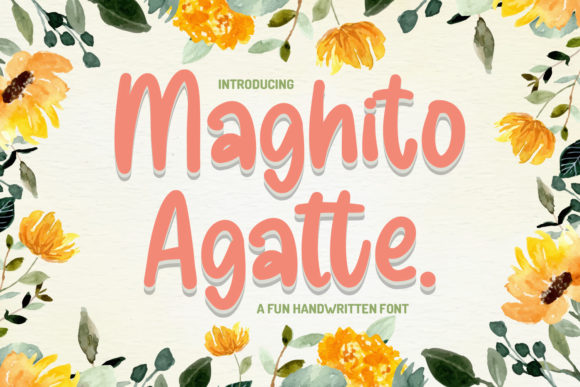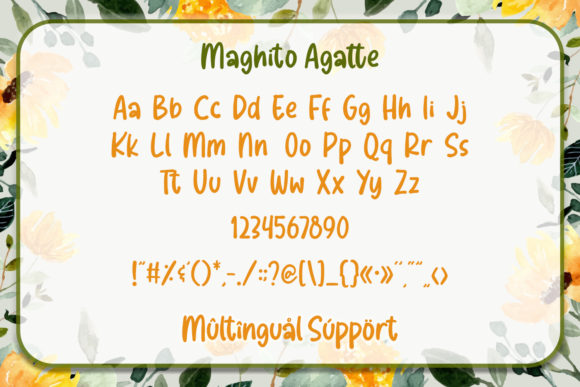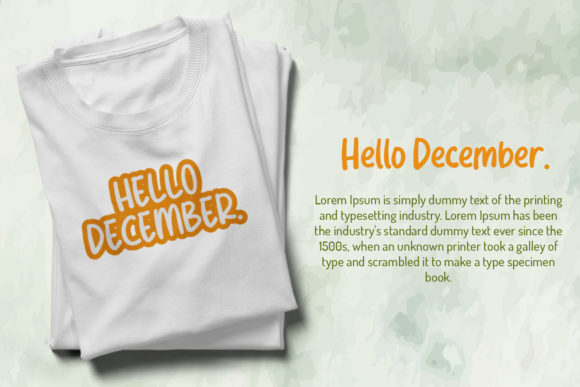
Maghito Agatte Font
About Maghito Agatte Font
Maghito Agatte embodies fun, quirkiness and authenticity. This enchanting handwritten font will turn any creative idea into a true standout. Add it confidently to your projects, and you won’t be disappointed.